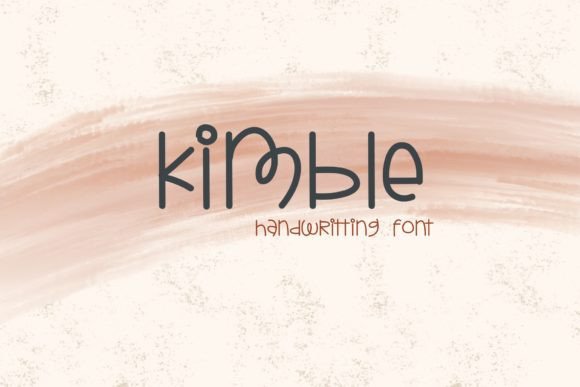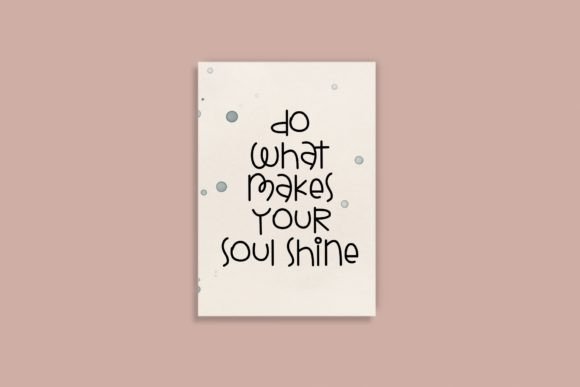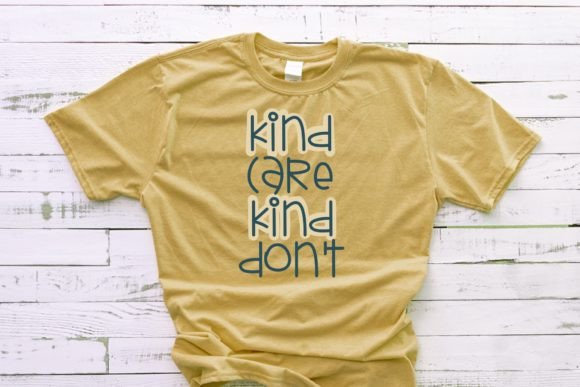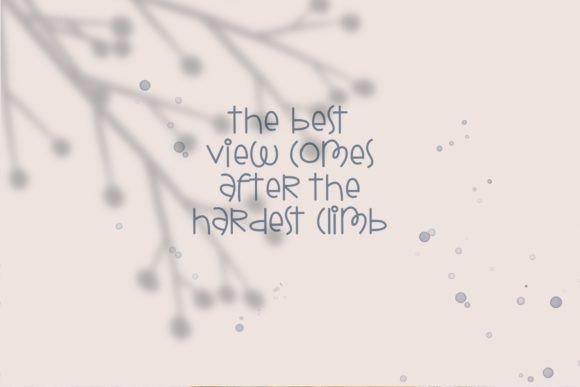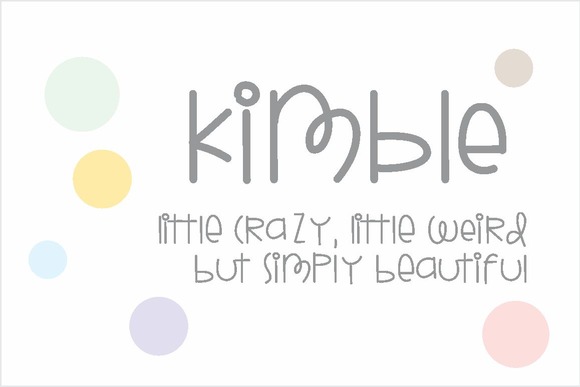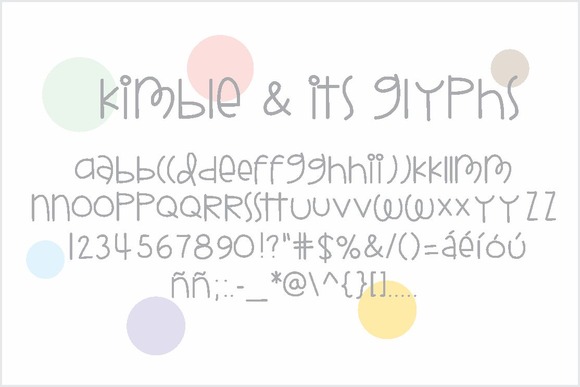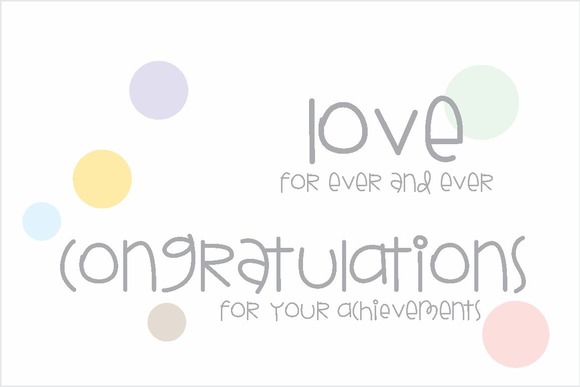
Kimble Font
About Kimble Font
Kimble is a unique, beautiful typeface and can be used for various purposes such as magazine or newspaper articles, books, advertising, brochures, documents, illustrations, booklets, billboards, business cards, packaging, high-resolution videos, presentations, postcards, calendars, posters, t-shirts, print & presentations templates and much more!